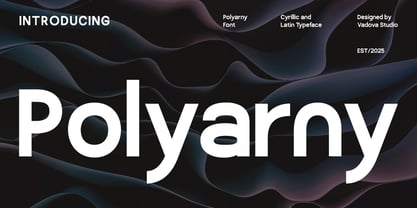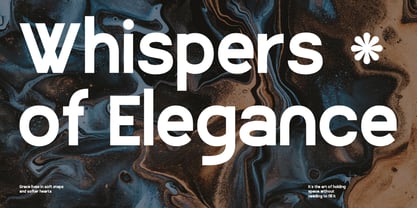
Polyarny
by Vadova Std
The Polyarny Font Family was designed by and published by Vadova Std. Polyarny contains 1 styles.
Polyarny is a sleek and modern sans serif typeface with both Cyrillic and Latin support, designed for clean and sophisticated visuals. Its smooth curves and bold presence make it ideal for branding, digital content, editorial layouts, packaging, and contemporary web design. Whether used in headlines or body text, Polyarny delivers clarity and elegance while maintaining a strong and stylish personality. Perfect for creative professionals seeking a refined yet impactful typeface, Polyarny adds a polished touch to both print and screen projects.
* Uppercase & Lowercase characters
* Numeral & Punctuations